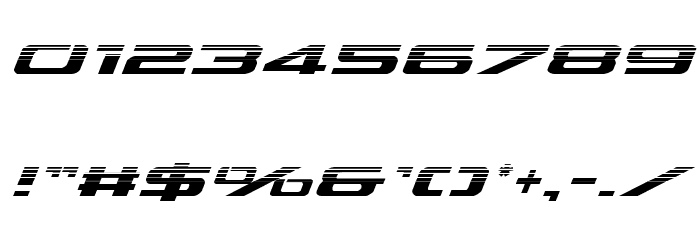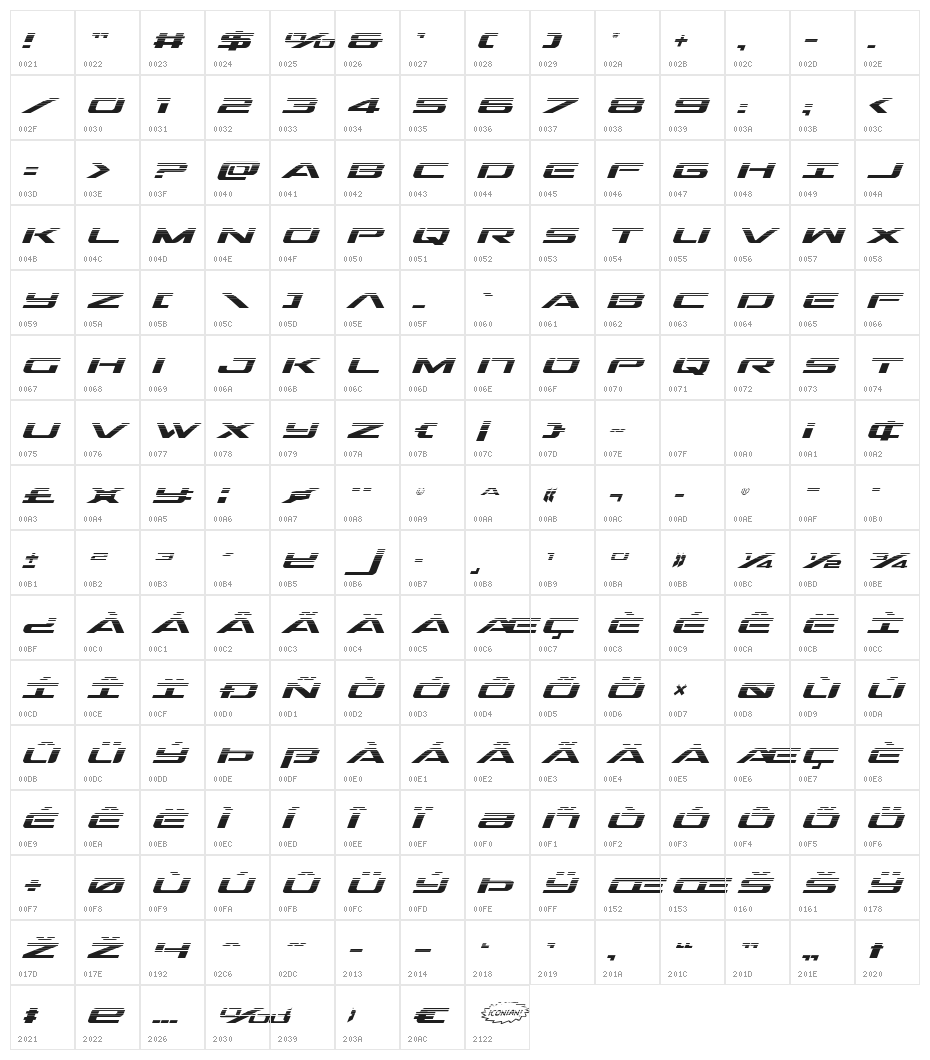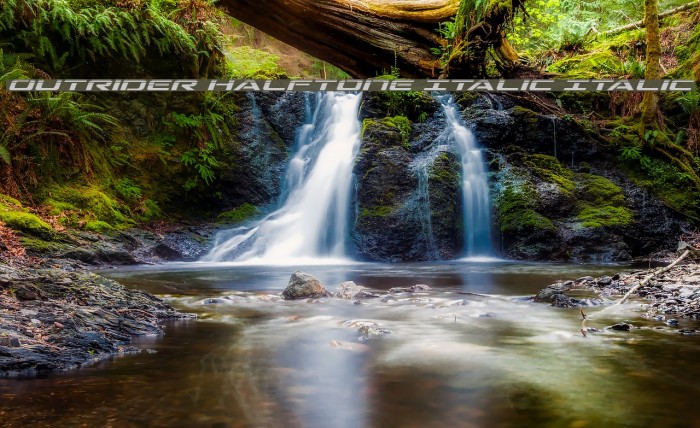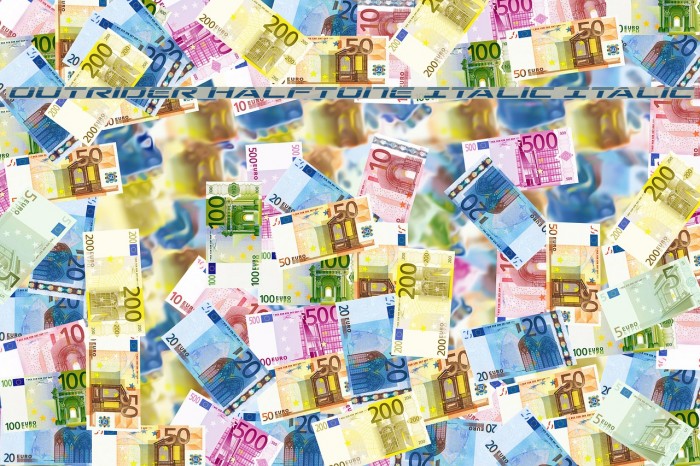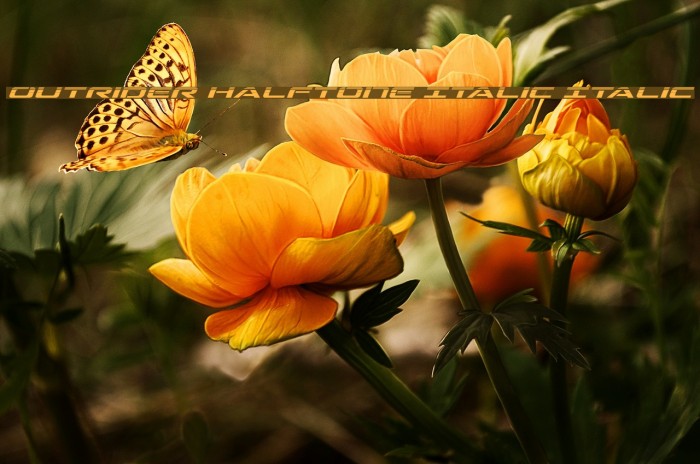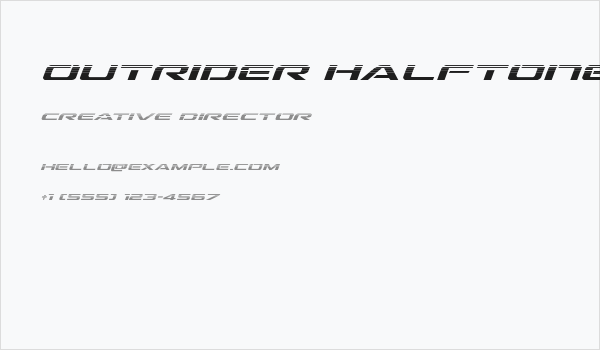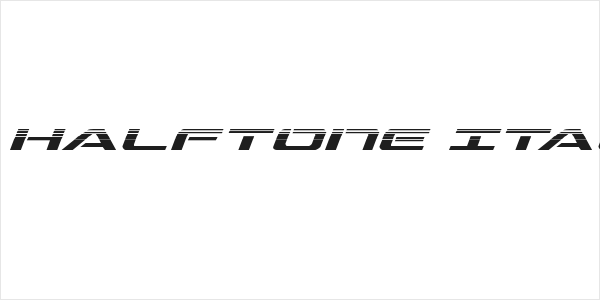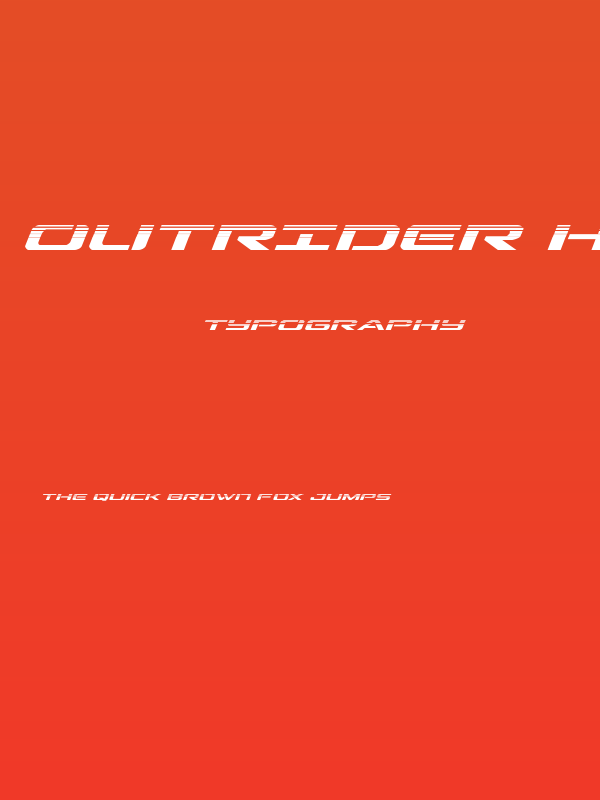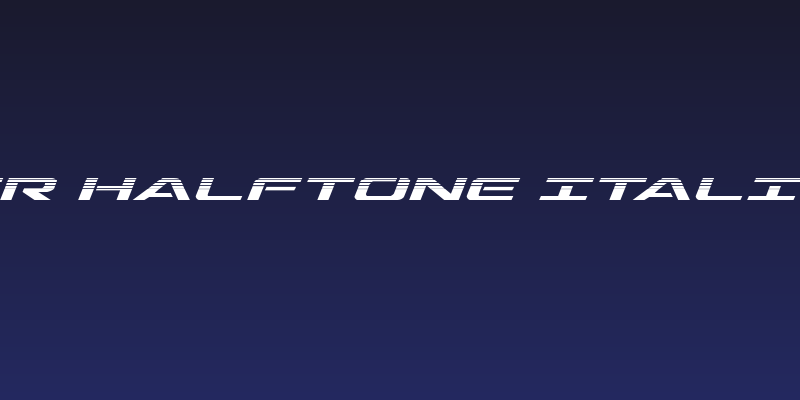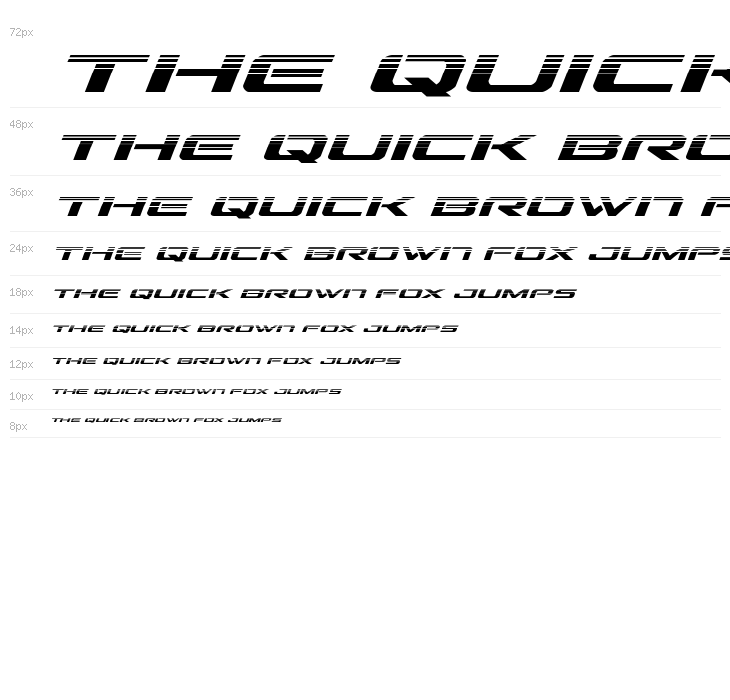
Outrider Halftone Italic Italic Font
Outrider Halftone Italic Italic Description
This font features a dynamic and futuristic design, characterized by its italicized and halftone style. The letters are slanted, giving a sense of motion and speed, which is further emphasized by the halftone effect that adds a textured, almost digital appearance. The uppercase and lowercase letters maintain a consistent style, with sharp angles and clean lines. The numerals and special characters follow the same design principles, ensuring uniformity across all glyphs. This font is ideal for projects that require a modern and edgy look, such as technology branding, sports team logos, or sci-fi themed designs.
| Use Case | Logos, Headlines |
| Proposed Projects | Ideal for technology branding, sports logos, and sci-fi themed designs. |